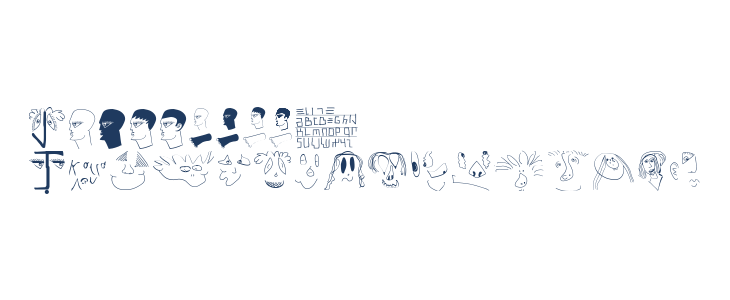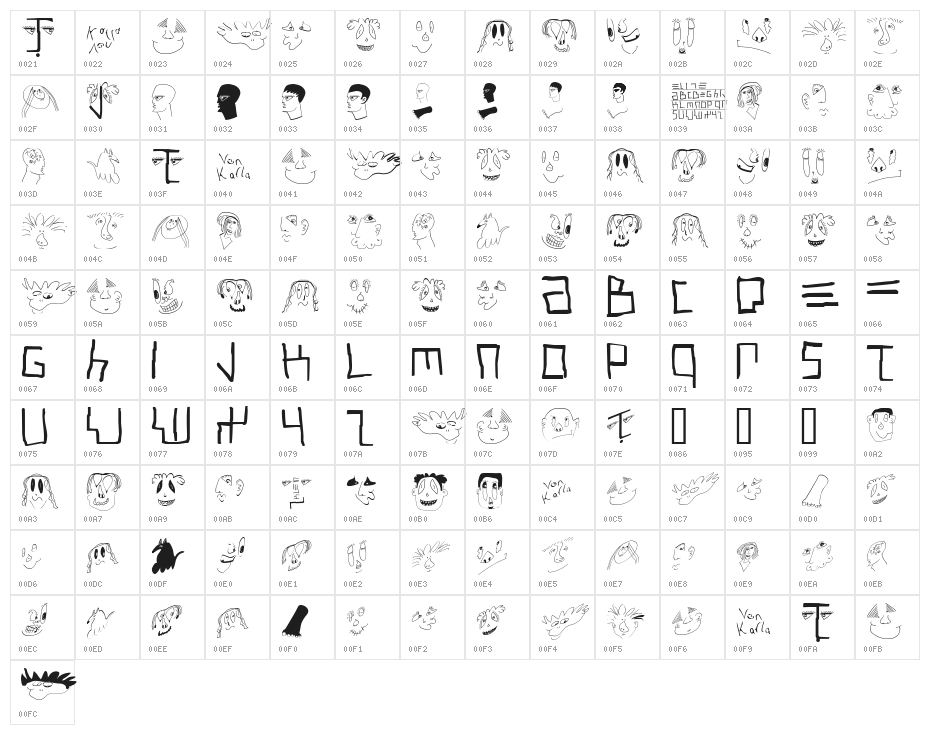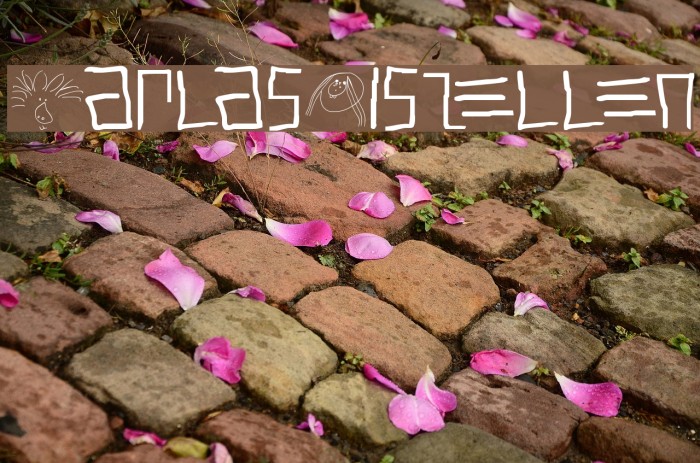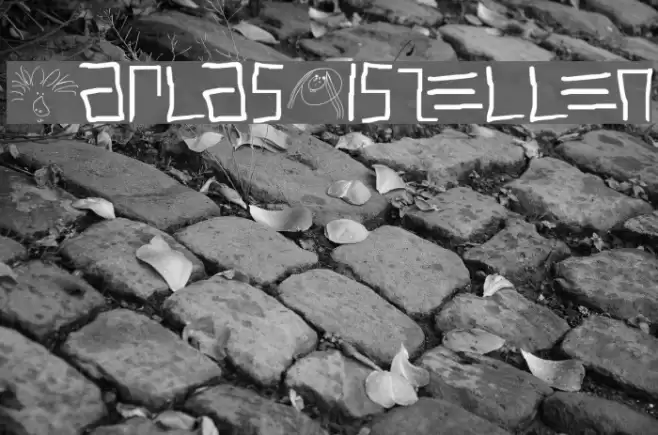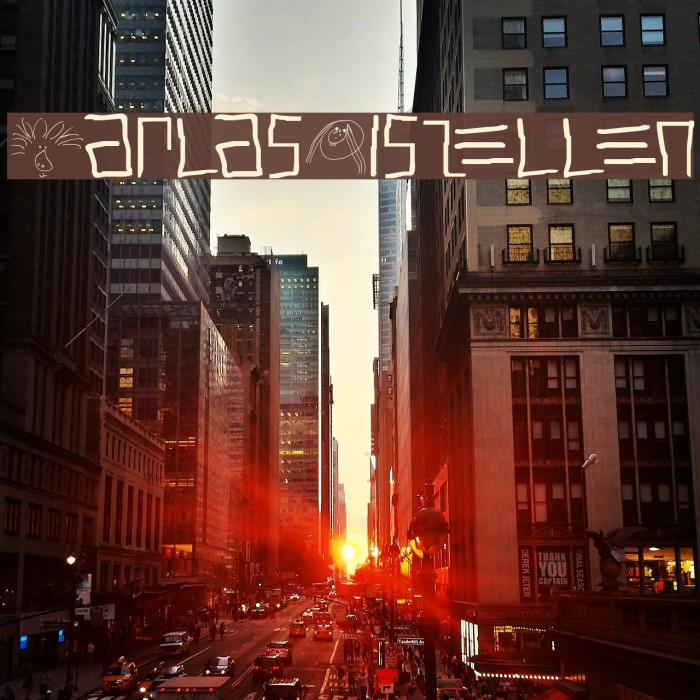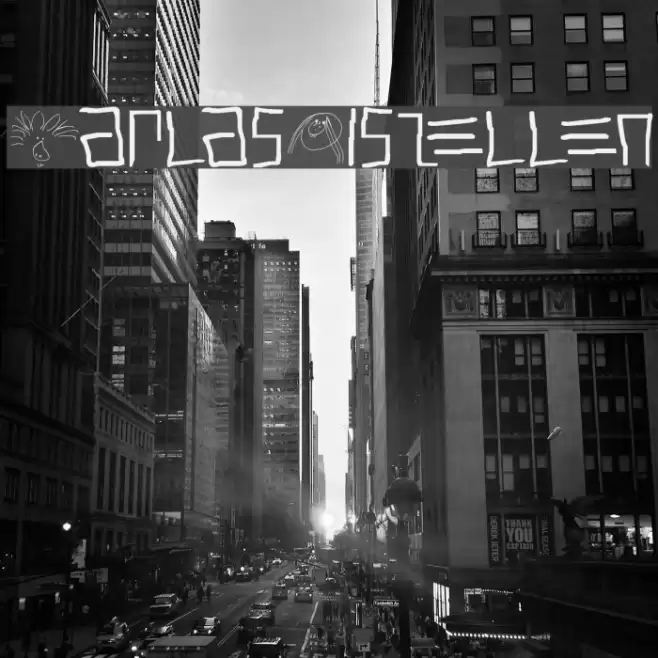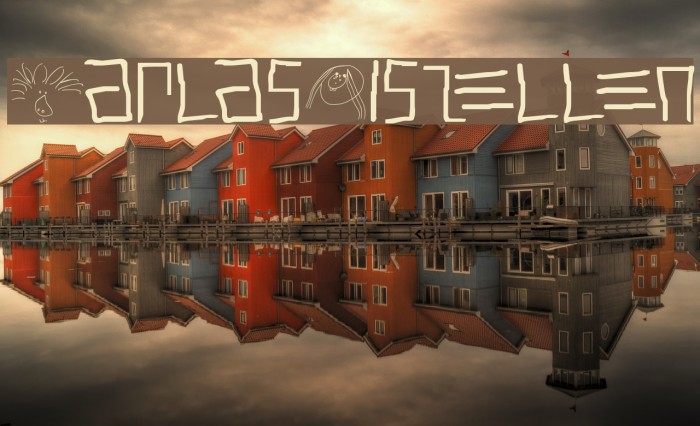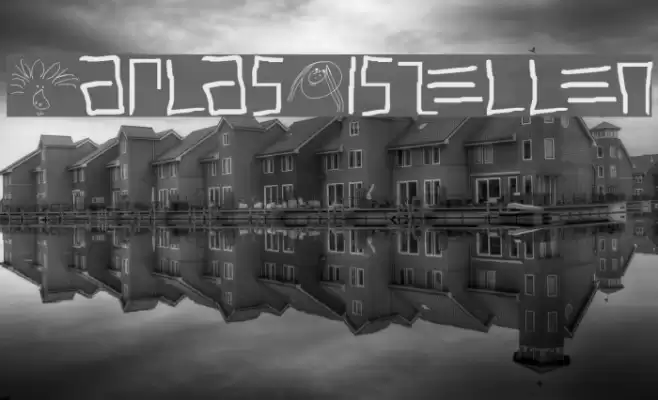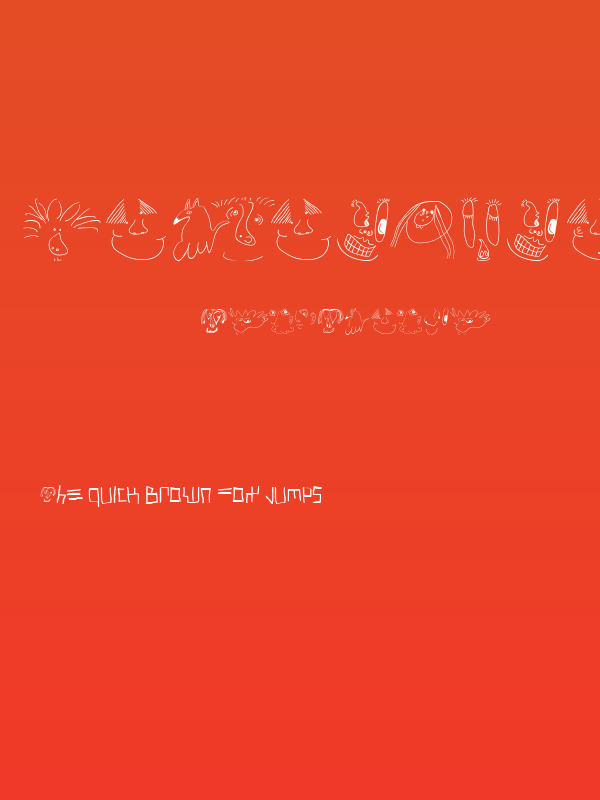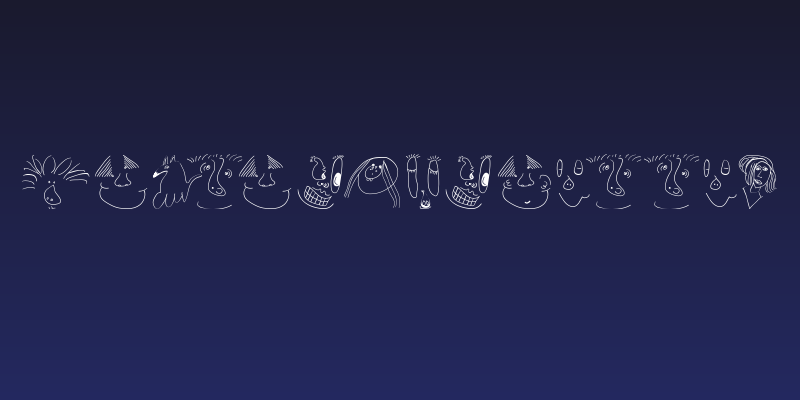
KarlasMiszellen Font
KarlasMiszellen Description
This font features a highly stylized and abstract design, characterized by its irregular and jagged lines. Each character appears to be hand-drawn, giving it a unique and artistic appearance. The uppercase letters have a bold, angular form, while the lowercase letters maintain a similar aesthetic but with a slightly more compact structure. The numbers and special characters follow the same design principles, ensuring consistency throughout the set. The overall look is reminiscent of graffiti or street art, making it stand out with its unconventional and edgy style.
| Use Case | Logos, Posters, Artistic Projects |
| Proposed Projects | Ideal for artistic projects, album covers, street art-inspired designs, or any creative work that requires a bold statement. |